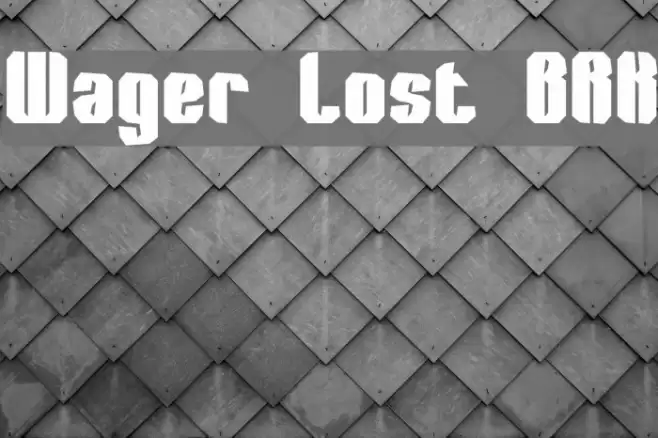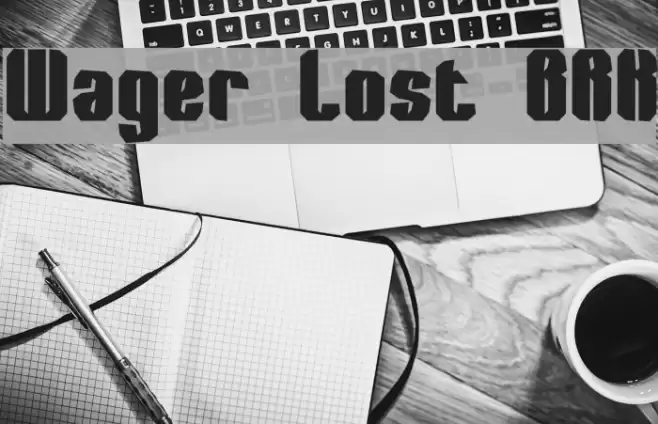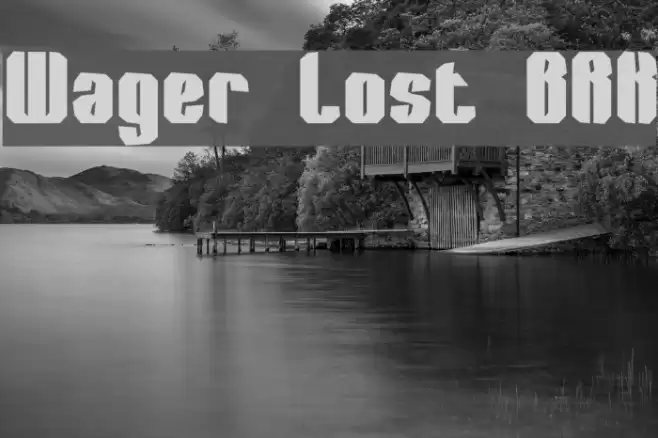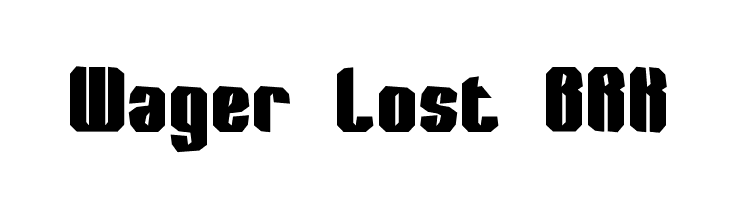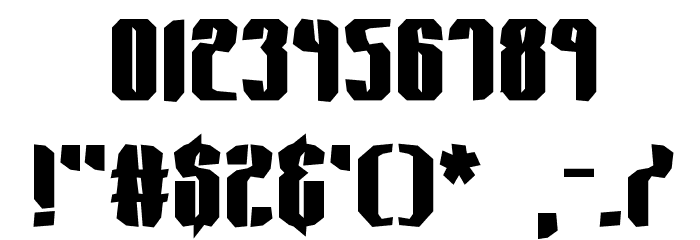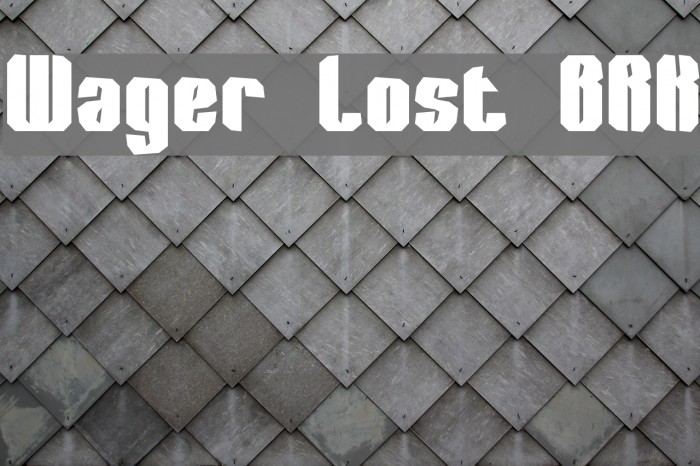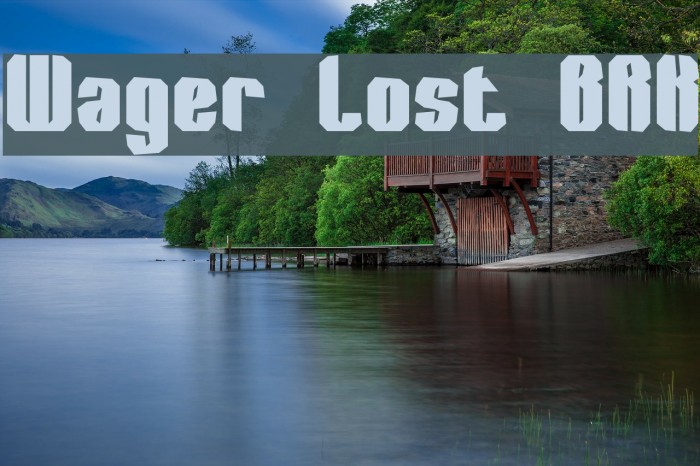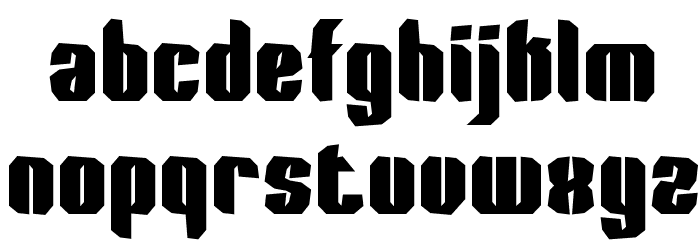
Wager Lost BRK Font
Wager Lost BRK Description
This font features a bold and angular design, reminiscent of Gothic or Blackletter styles. The characters are sharply defined with a strong vertical emphasis, giving them a striking and commanding presence. The uppercase and lowercase letters maintain a consistent style, with the lowercase being slightly more compact. Numbers and special characters follow the same bold and angular aesthetic, ensuring uniformity across all glyphs. The overall design is highly decorative, making it suitable for projects that require a dramatic and impactful visual statement.
A bold, angular font with a Gothic-inspired design from Uncategorized fonts.
- Proposed Projects: Ideal for posters, album covers, logos, and any design requiring a dramatic and bold statement.